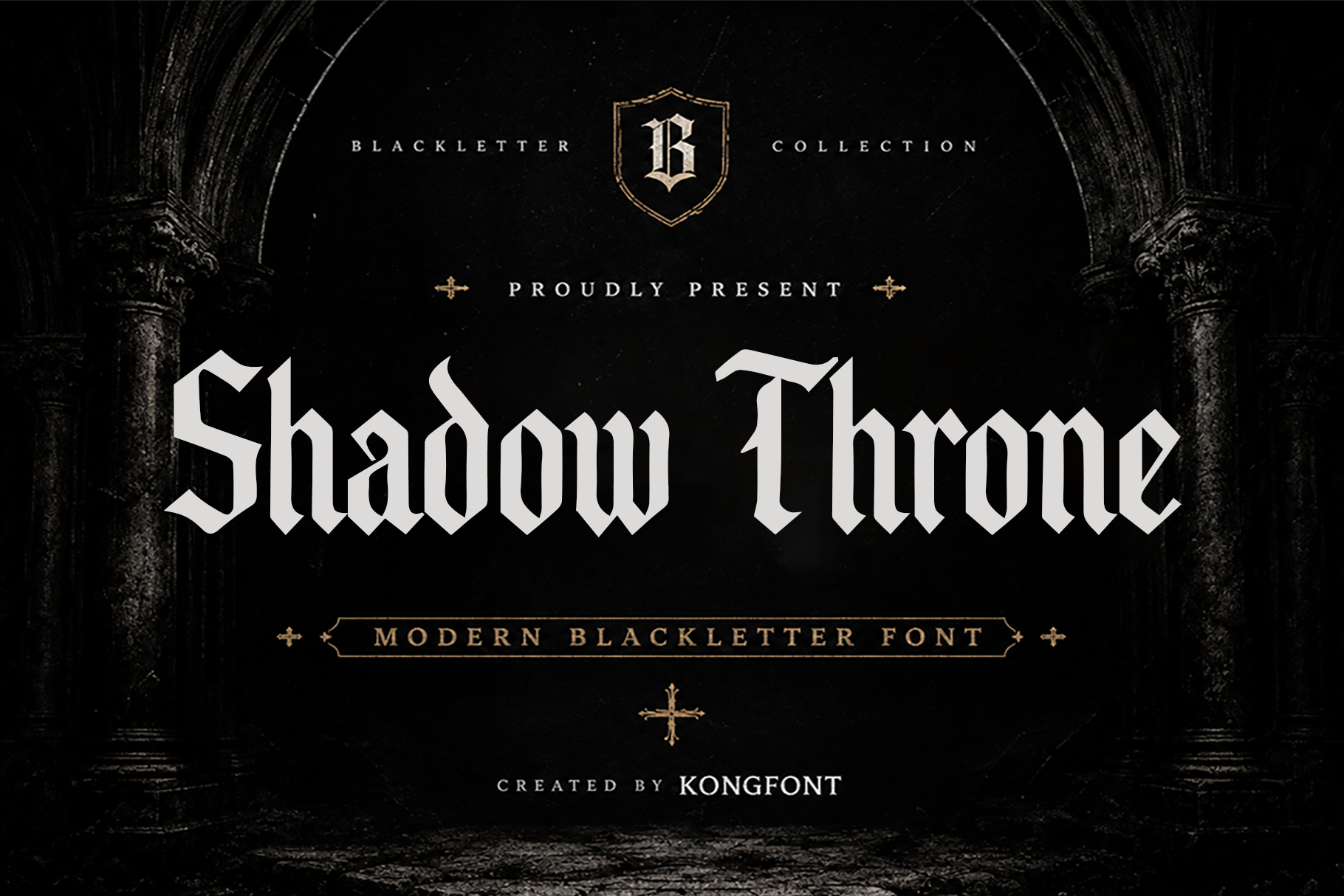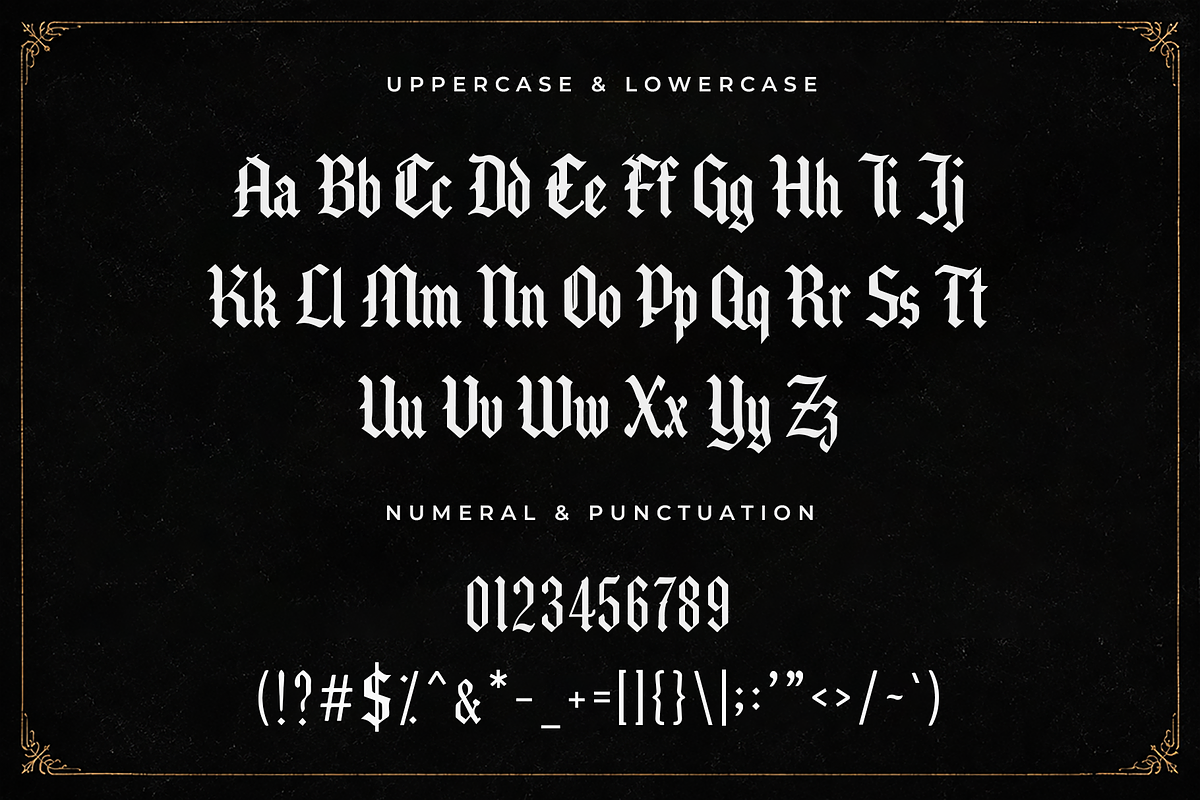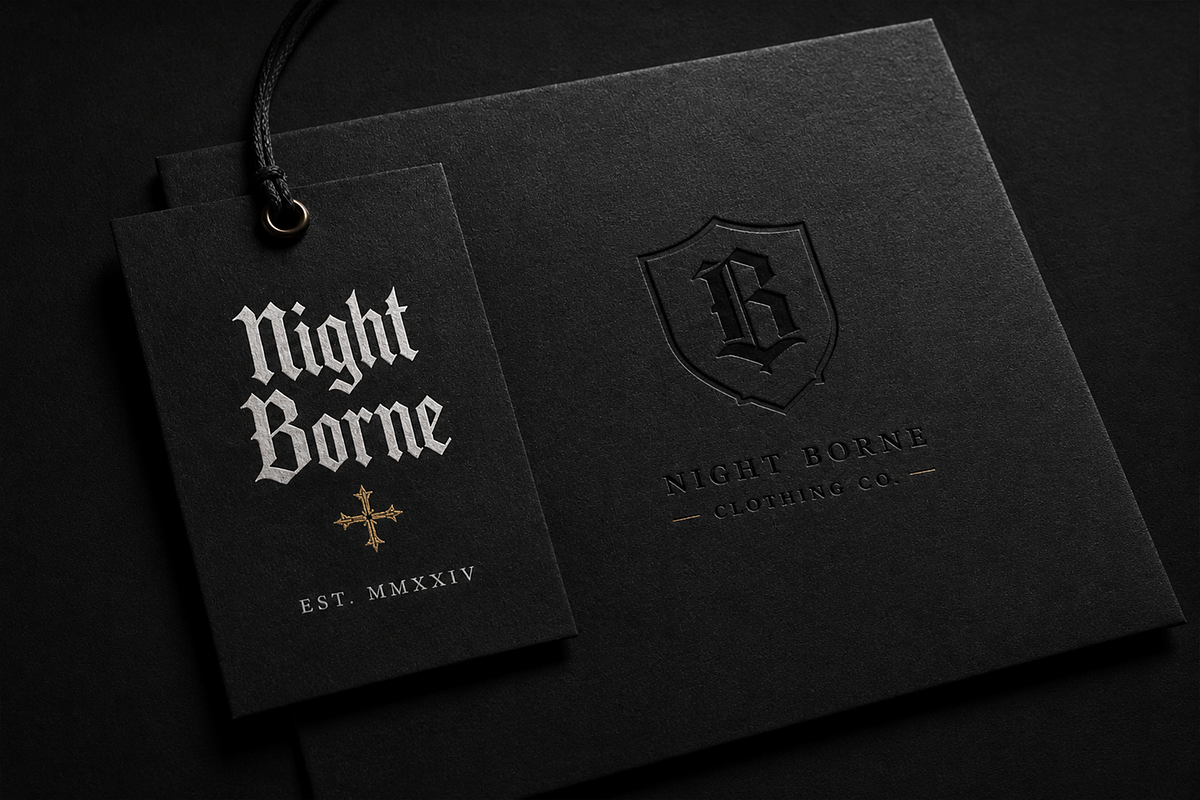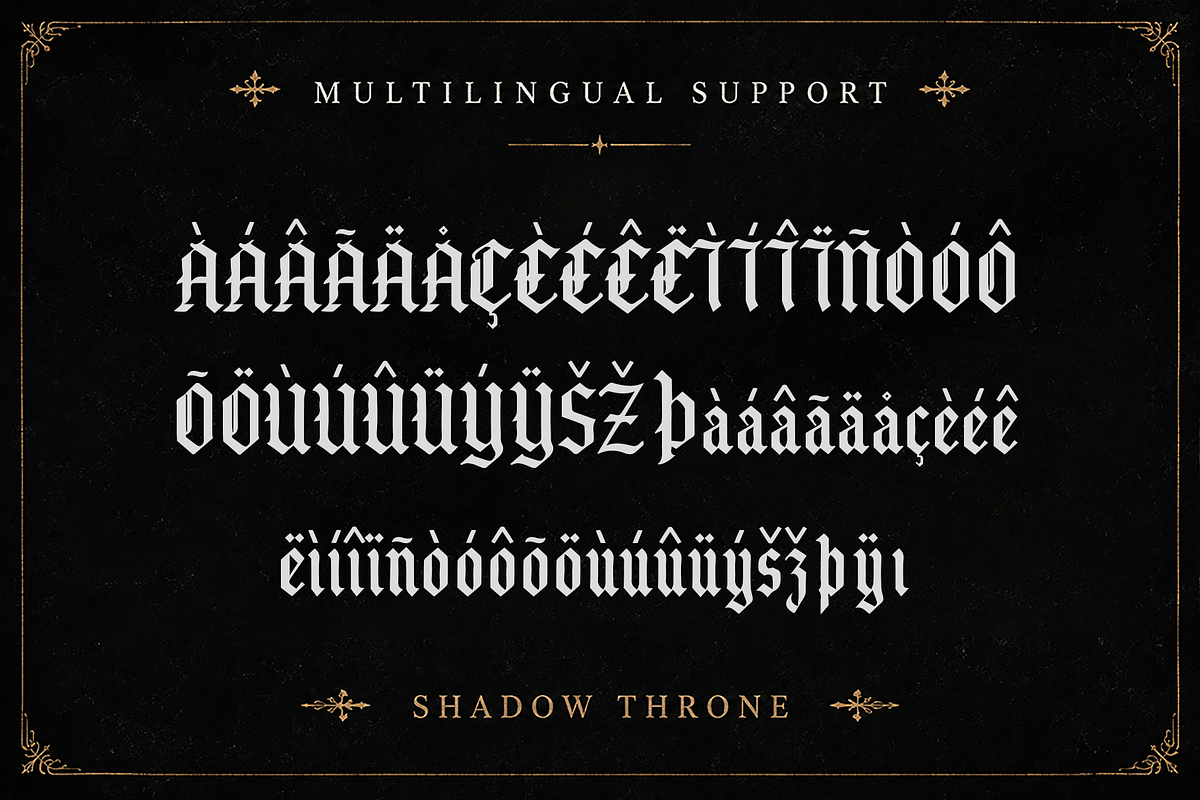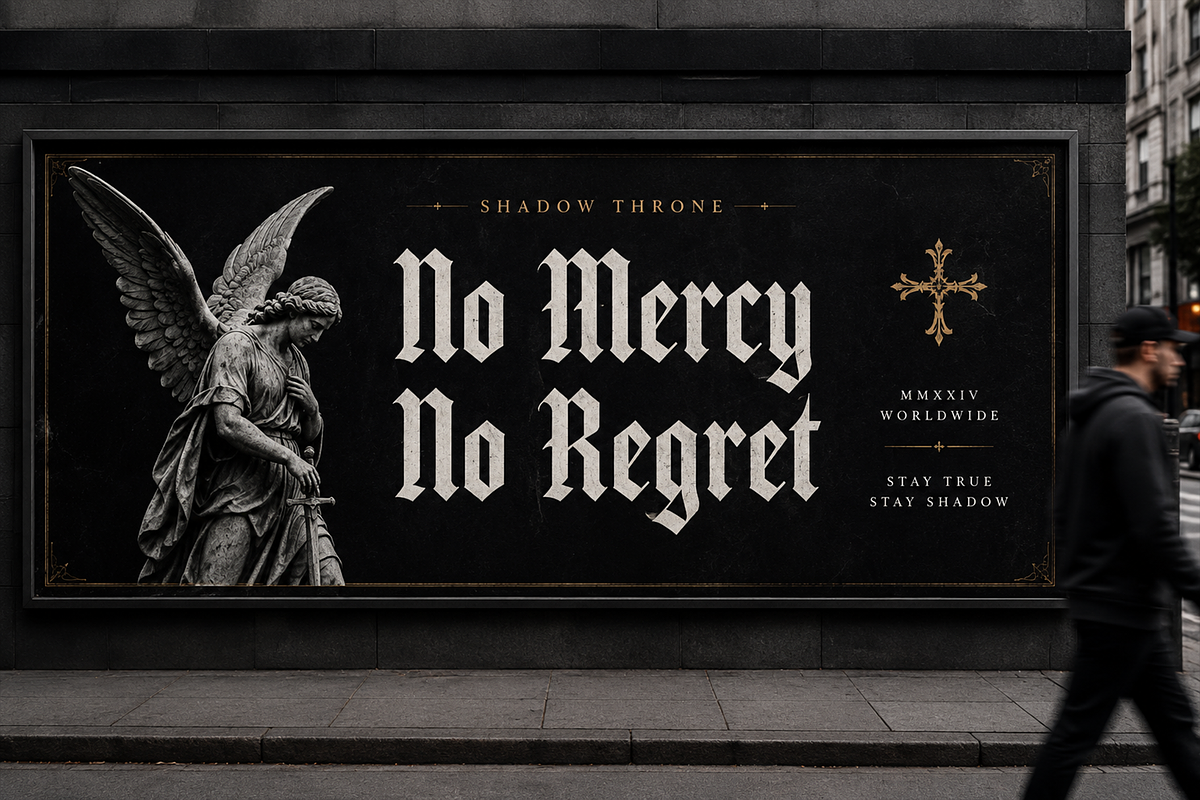
ShadowThrone-Modern Blackletter Font
Shadow Throne - Modern Blackletter Display Font
Meet "Shadow Throne," a bold modern blackletter display font inspired by gothic architecture, medieval manuscripts, royal crests, and dark fantasy aesthetics. Featuring dramatic strokes, sharp angular details, and a powerful historical character, Shadow Throne brings an imposing and sophisticated presence to every design.
Shadow Throne is an excellent choice for gothic branding, medieval-inspired artwork, tattoo designs, metal and rock graphics, fantasy book covers, game titles, apparel, merchandise, liquor-style branding concepts, event posters, album covers, and cinematic typography. Its commanding structure creates a memorable visual identity while preserving the dramatic elegance associated with classic blackletter lettering.